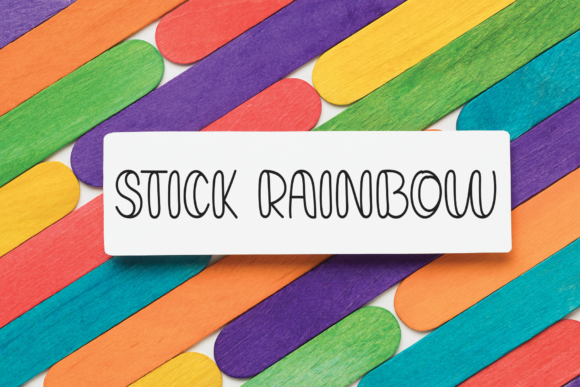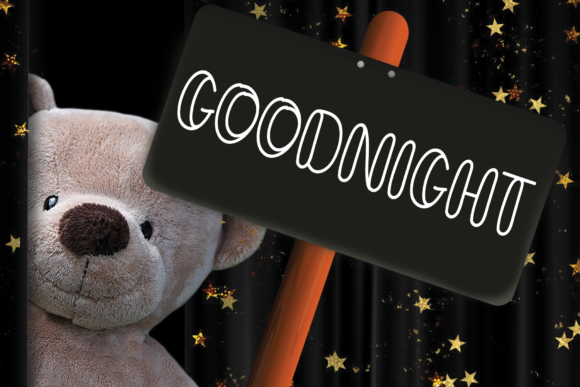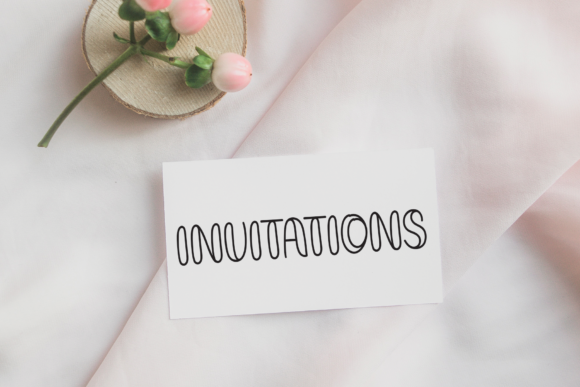
Balloon Font
About Balloon Font
This is a handwritten font that exudes sweetness. It has been meticulously crafted to yield the desired results. This font can be utilized to inscribe a variety of products, catering to their unique requirements.
The sweetness of this font gives it a warm and inviting feel. This makes it perfect for projects that require a personal touch, such as greeting cards or personalized gifts.
One of the standout features of this font is its meticulous craftsmanship. This gives it a sophisticated and classy feel, making it perfect for projects that require a touch of elegance and sophistication. Whether you’re designing a wedding invitation, a logo, or a social media post, this font can add that extra touch of class that makes your designs stand out.
This font is not just a font; it’s a tool that can help you express your creativity. Its versatility allows it to be used in a variety of contexts, making your designs more appealing and engaging. Whether you’re designing for a client or for your own personal projects, this font can help you convey the right emotion and message.
Moreover, this font can be used to inscribe a variety of products. Its elegant and professional look can enhance your product’s overall aesthetic, making it more appealing to your customers. Whether you’re designing a logo, a business card, or a website, this font can help you create a consistent and professional look for your product.
In conclusion, this sweet, meticulously crafted, and versatile handwritten font is perfect for a wide range of projects. Its versatility and elegance make it a valuable asset for any designer. So, whether you’re a professional designer or a hobbyist, this font is worth considering for your next project. Why not give this font a try and see how it can enhance your designs? You might be surprised at the difference it can make!